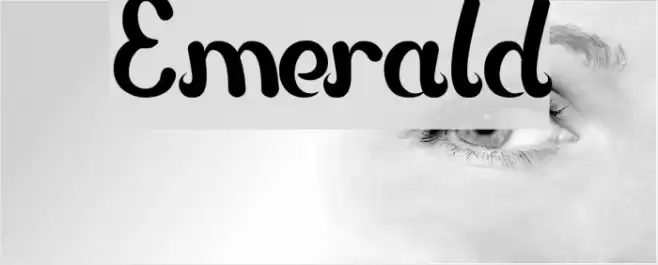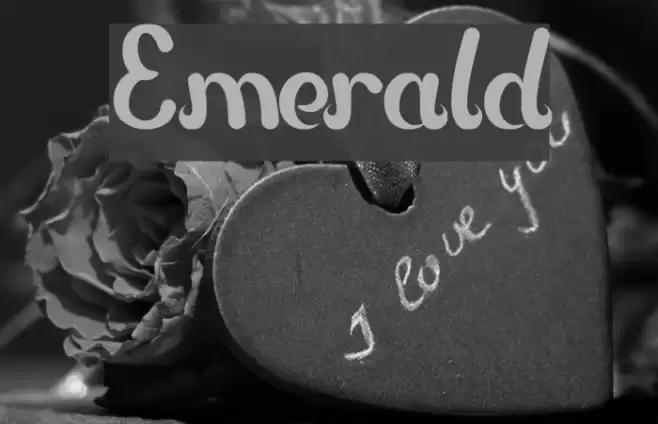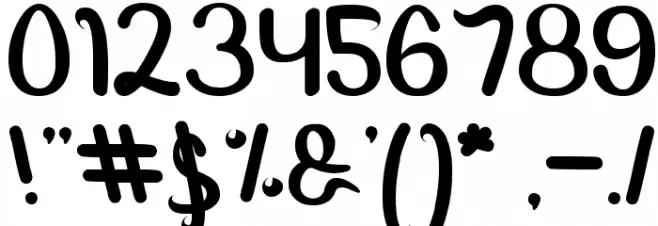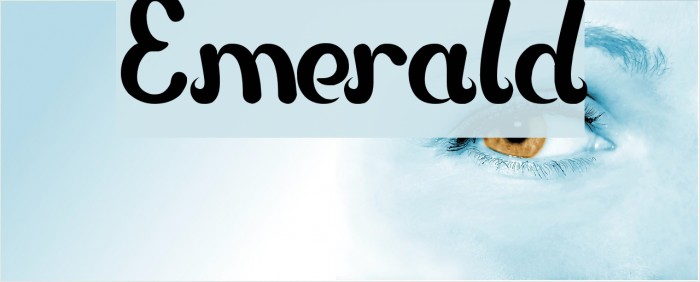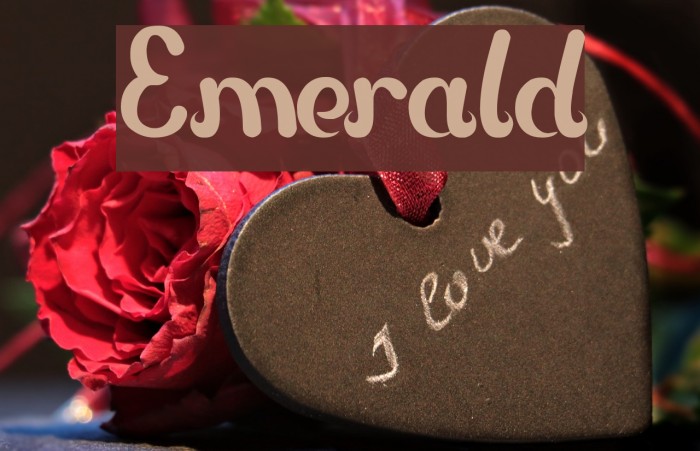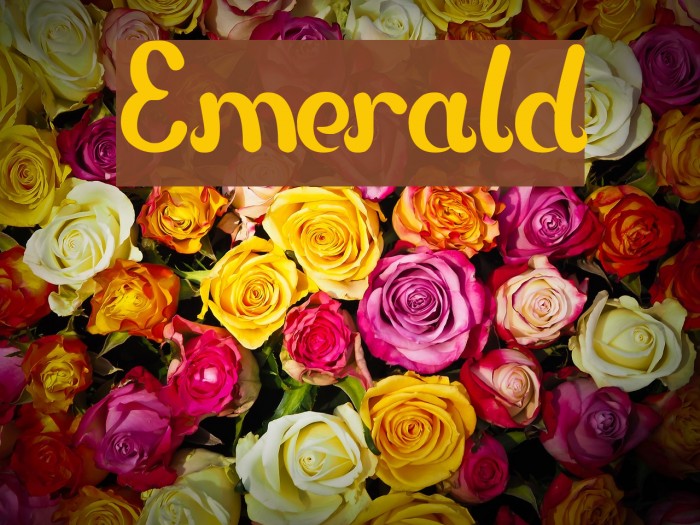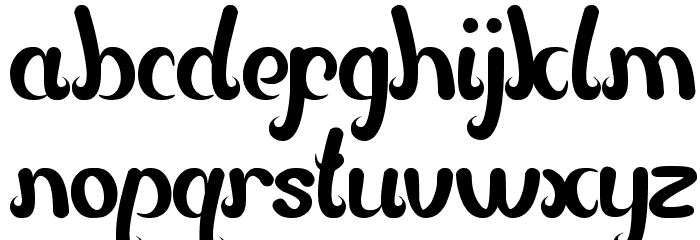
Emerald Font
Emerald Description
This font features a playful and bold script style with a handwritten appearance. The characters are rounded and connected, giving it a fluid and dynamic look. The uppercase letters are slightly larger and more pronounced, while the lowercase letters maintain a consistent flow. Numbers and special characters are designed to match the overall style, ensuring cohesion throughout. The font's thick strokes and smooth curves make it highly legible, even at smaller sizes. Its whimsical nature makes it suitable for creative and informal projects, adding a touch of personality and charm.
A playful, bold script font with a handwritten style and smooth, rounded characters from Uncategorized fonts.
- Proposed Projects: Ideal for greeting cards, invitations, playful branding, children's books, and social media graphics.
- Use Case: Logos, Headlines, Invitations